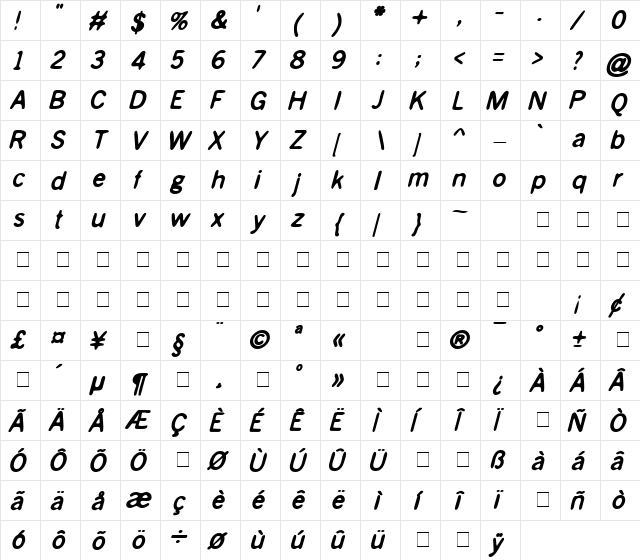
BlueBond-Oblique Regular
Design Context for BlueBond-Oblique Typeface
BlueBond-Oblique offers clean, dependable letterforms without strong stylistic allegiance, making it a practical choice for designers who need flexibility. Its italic angle brings a sense of urgency and motion to the letterforms.
Pro Tip: Use BlueBond-Oblique for emphasis, pull quotes, and subheadings where its slanted energy can add rhythm to the layout.